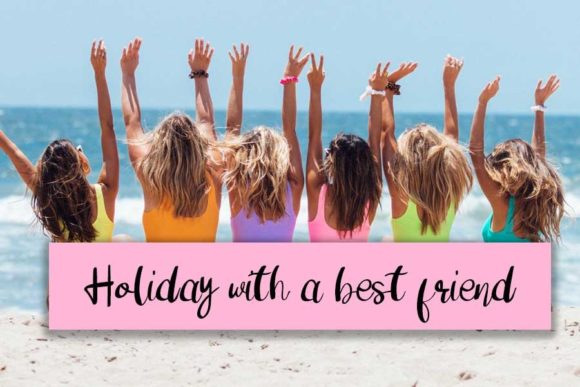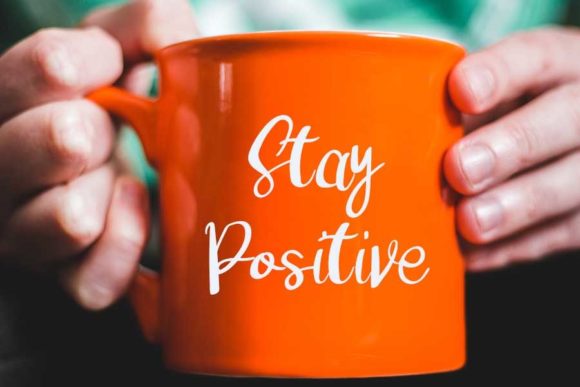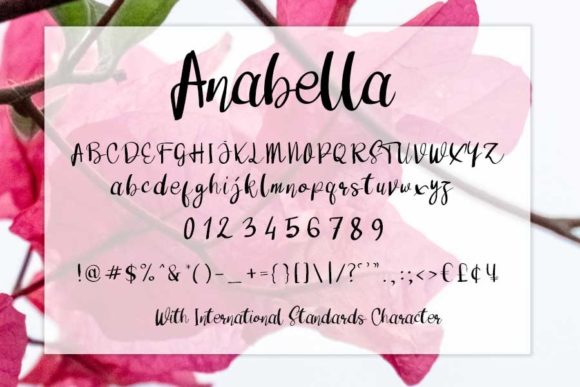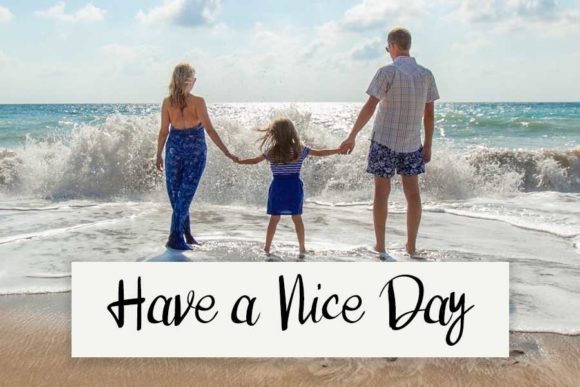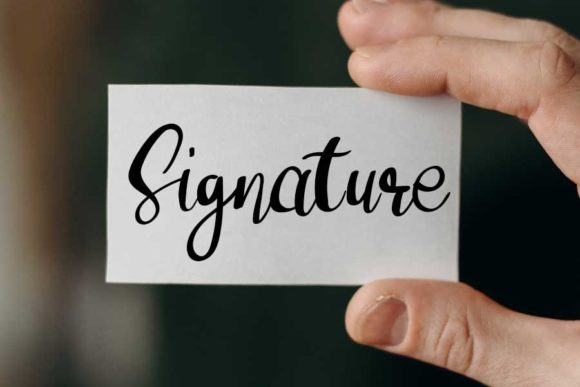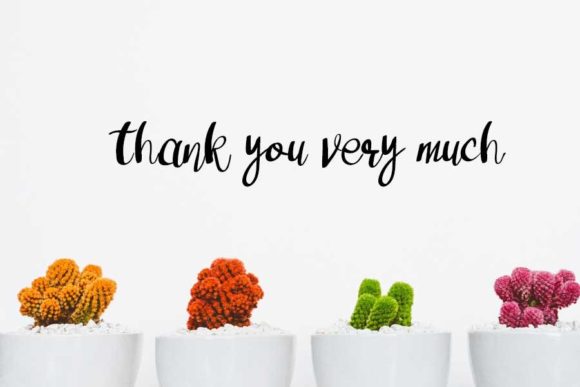
Introducing Anabella Font: The Epitome of Sophistication and Elegance
In the world of typography, few fonts manage to convey the essence of luxury and refinement as effortlessly as Anabella Font. This chic, elegant script font has been making waves in the design community, and for good reason. Its sophisticated appearance, coupled with a range of stylish alternates and ligatures, makes Anabella the perfect match for any project that demands a touch of class.
The Anatomy of Anabella Font
Anabella Font is a meticulously crafted script typeface that exudes an air of sophistication. Its fluid strokes and harmonious letterforms are designed to evoke a sense of elegance, making it an ideal choice for projects that require a refined aesthetic. Whether you’re working on a luxury brand logo, a high-end product catalog, or an elegant wedding invitation, Anabella Font is sure to impress.
Key Features of Anabella Font
- Stylish Alternates: Anabella Font comes with a range of stylish alternates that allow you to customize your text to fit your project’s unique style. From subtle variations to more dramatic changes, these alternates give you the flexibility to create a truly unique look.
- Ligatures: The font also features a set of ligatures that seamlessly connect letters, creating a flowing, natural look that’s perfect for body text or headings.
- Elegant Swashes: For added flair, Anabella Font includes elegant swashes that can be used to add a touch of drama to your design.
What Makes Anabella Font Stand Out?
So, what sets Anabella Font apart from other script fonts on the market? Here are a few key factors:
- Uniqueness: Anabella Font’s distinctive letterforms and stylish alternates ensure that your design will stand out from the crowd.
- Versatility: Whether you’re working on a digital project or a print design, Anabella Font is optimized for use in a variety of contexts.
- Ease of Use: Despite its sophisticated appearance, Anabella Font is surprisingly easy to use, even for designers who are new to working with script fonts.
Who Can Benefit from Anabella Font?
Anabella Font is an excellent choice for a wide range of designers and crafters, including:
- Graphic Designers: Whether you’re working on a logo, brochure, or website, Anabella Font is a great choice for adding a touch of elegance to your design.
- Wedding and Event Planners: Create beautiful wedding invitations, menus, and other event materials with Anabella Font’s sophisticated, refined appearance.
- Crafters: From handmade cards to DIY crafts, Anabella Font is a great choice for adding a personal touch to your projects.
In conclusion, Anabella Font is a sophisticated, elegant script font that’s perfect for designers and crafters who want to add a touch of luxury to their projects. With its stylish alternates, ligatures, and elegant swashes, Anabella Font is sure to impress. Whether you’re working on a high-end brand campaign or a DIY craft project, Anabella Font is an excellent choice for anyone looking to elevate their design.